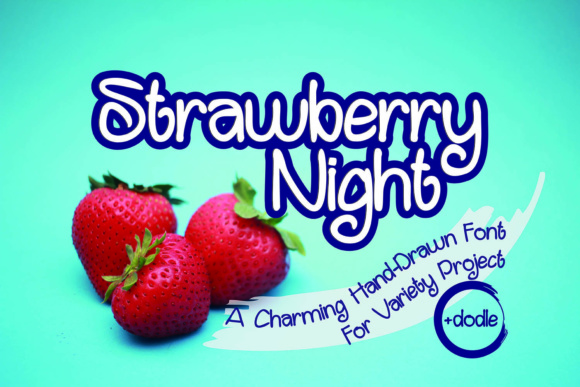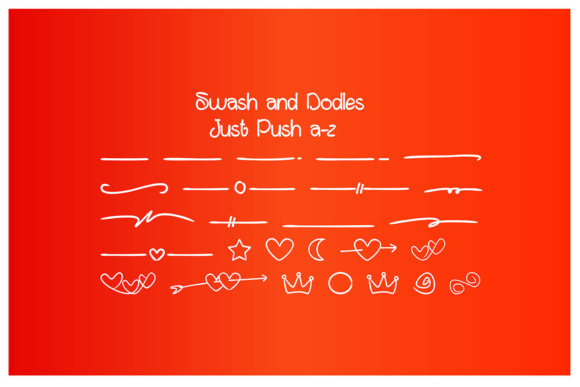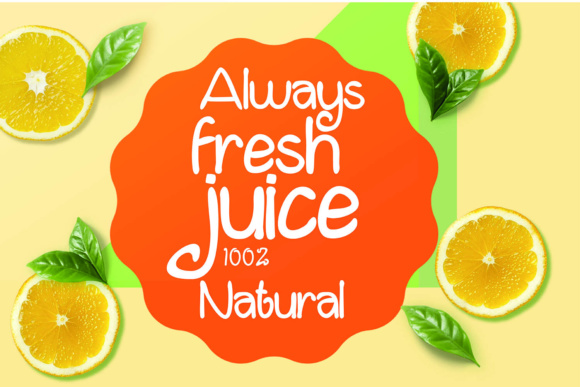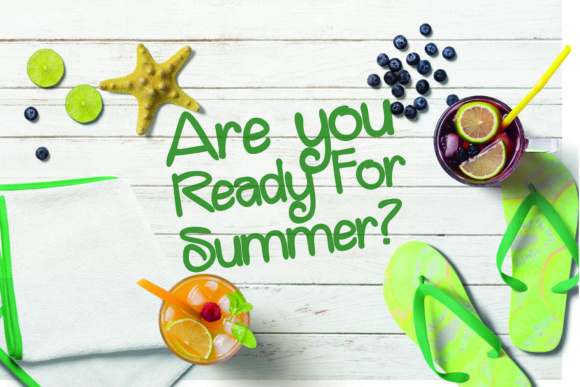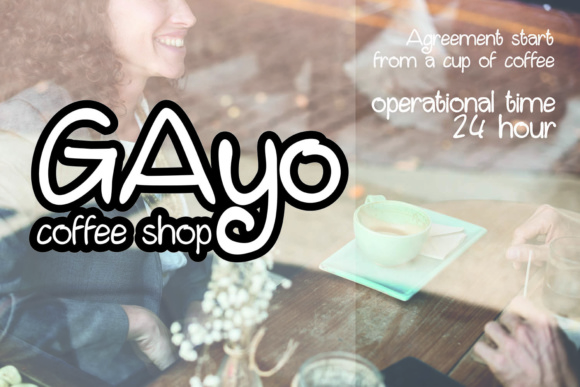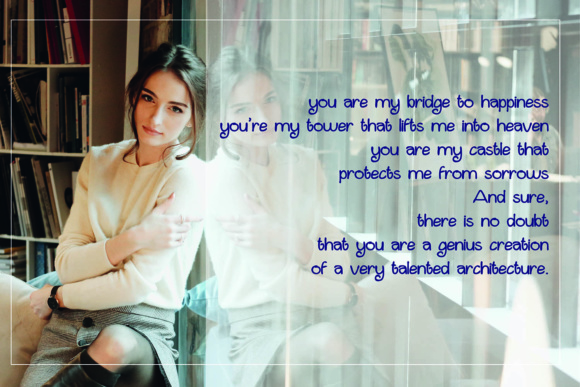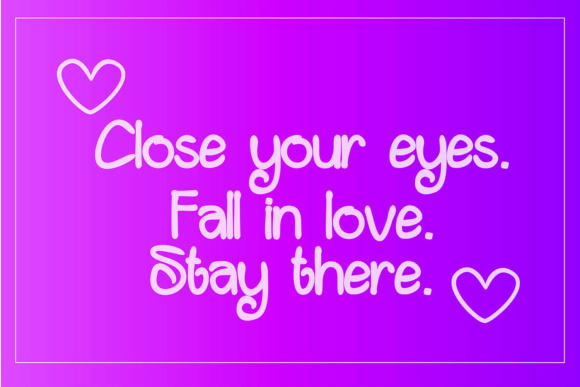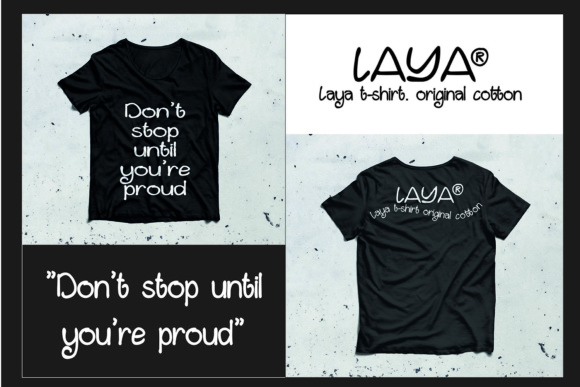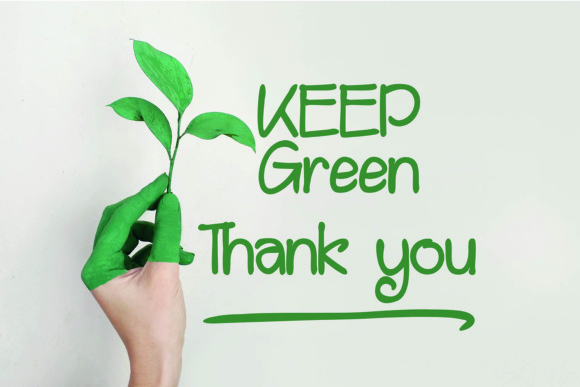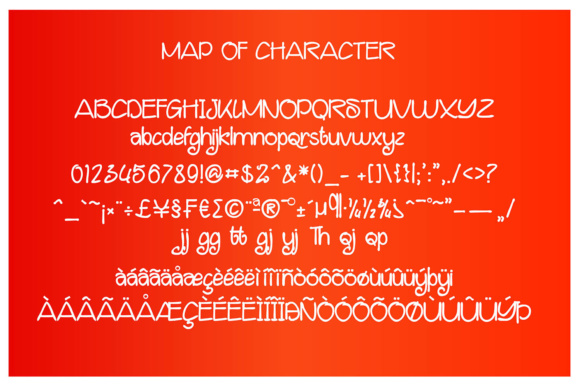
Strawberry Night Font
About Strawberry Night Font
Strawberry Night is a hand-drawn font. Strawberry Night looks strong for elegant designs, cute when you use it for girly and kids drawing designs, but looks simple when you use it for quote texts. Strawberry Nights is extensively edited for super-smooth lines and curves, so it’ll cut easily in your Cricut or Silhouette machine. Strawberry Night comes with doodles and swashes, which makes it perfect for multiple designing styles.